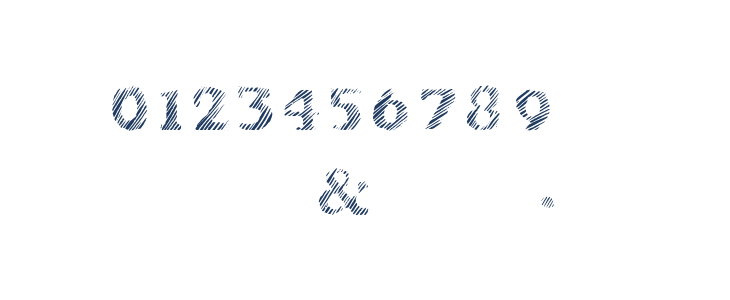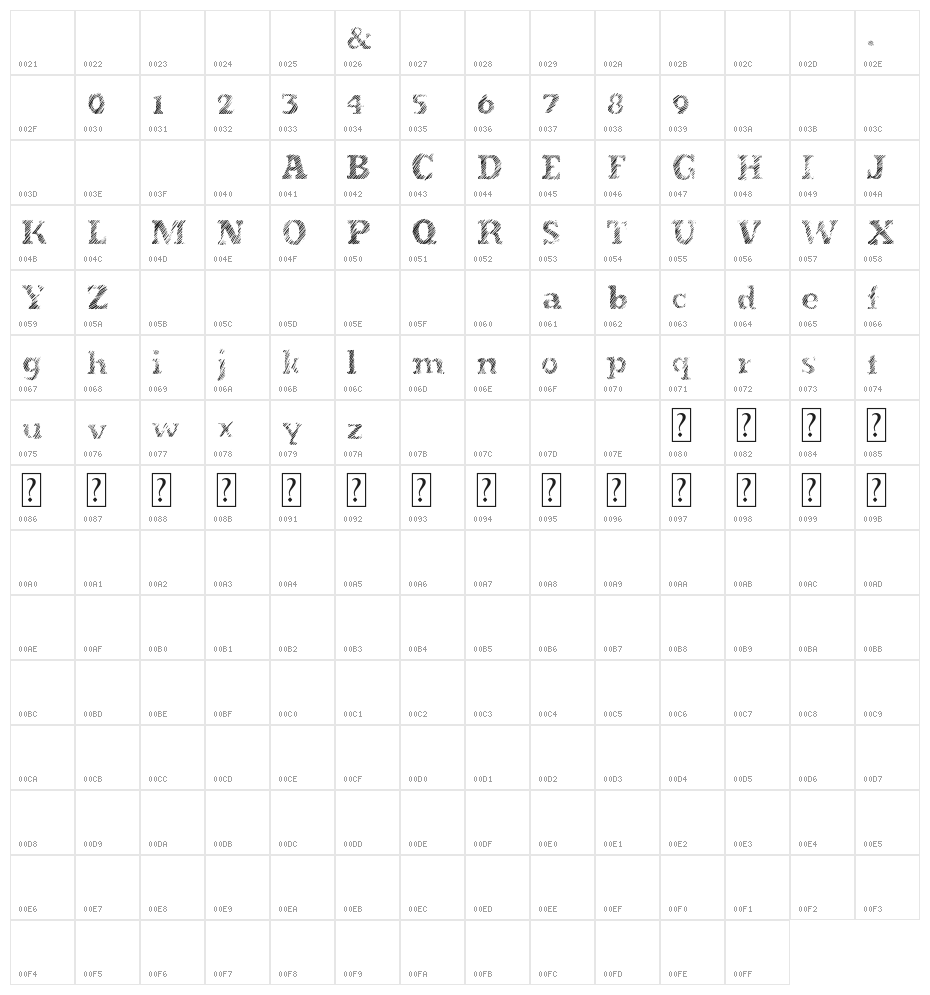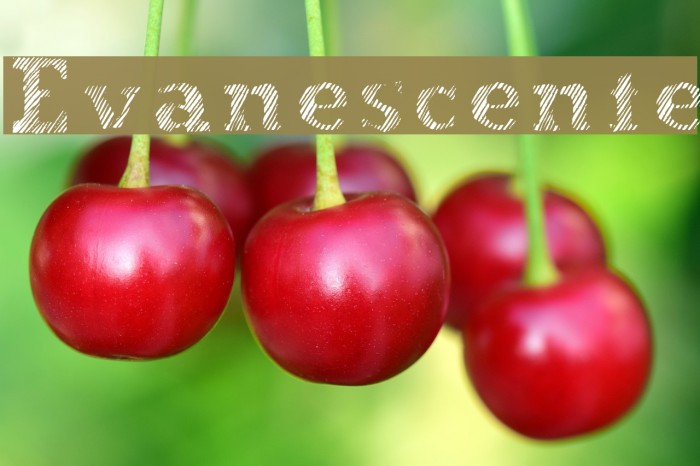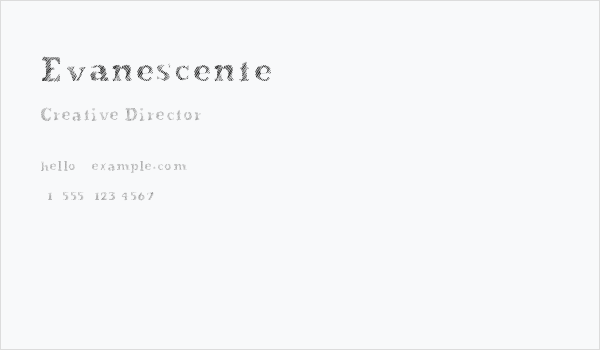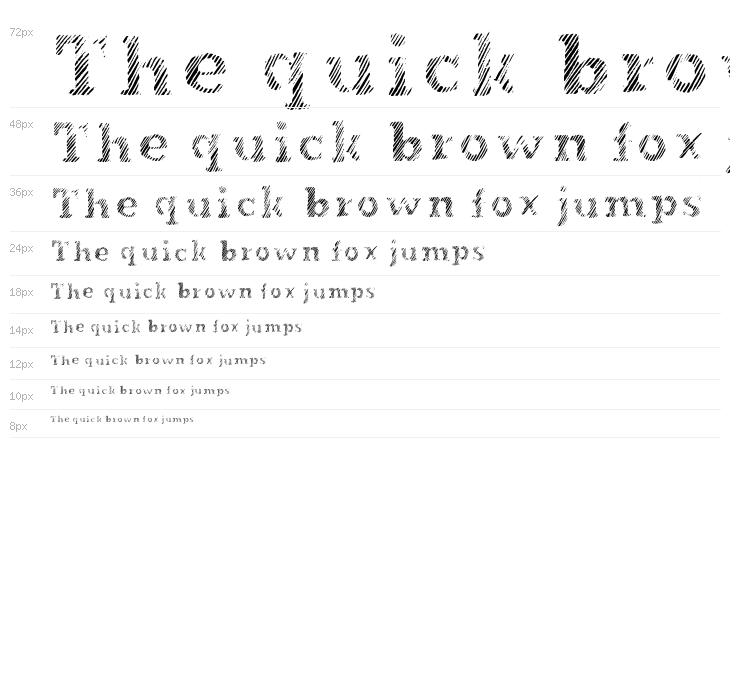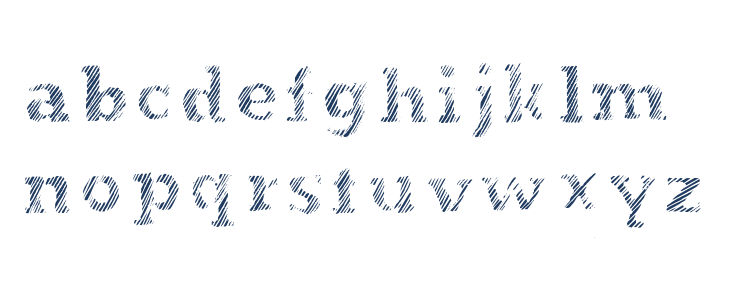
Evanescente Font
Evanescente Description
This font features a unique design with a textured, diagonal line pattern across each character, giving it a distinctive and artistic appearance. The characters are bold and have a serif style, which adds a classic touch to the overall modern and creative look. The uppercase and lowercase letters maintain a consistent style, with the serifs providing a traditional feel while the textured pattern introduces a contemporary twist. The numbers and special characters follow the same design principles, ensuring uniformity across all glyphs. This font is ideal for projects that require a blend of classic and modern aesthetics, making it suitable for artistic and creative applications.
| Overall Style | Modern, Artistic |
| Use Case | Logos, Posters, Creative Branding |
| Proposed Projects | Ideal for artistic projects, creative branding, posters, and unique logo designs. |